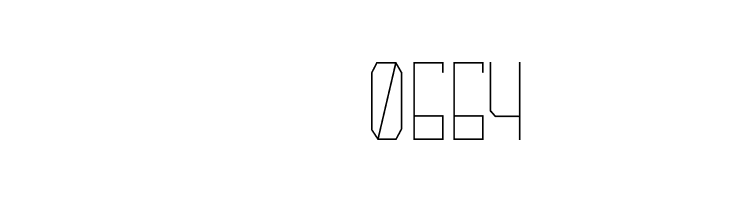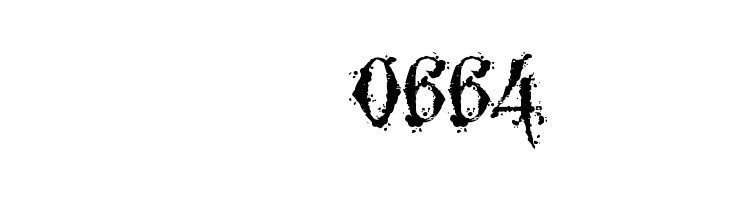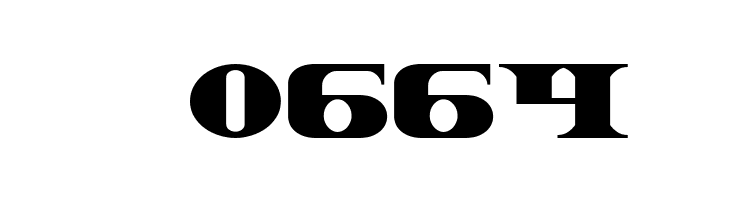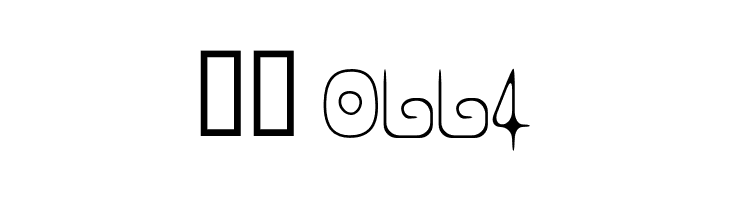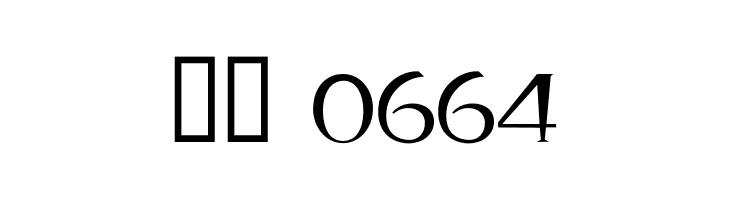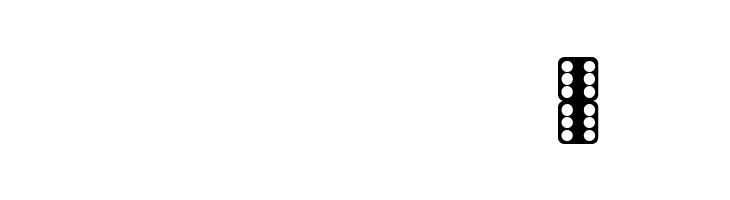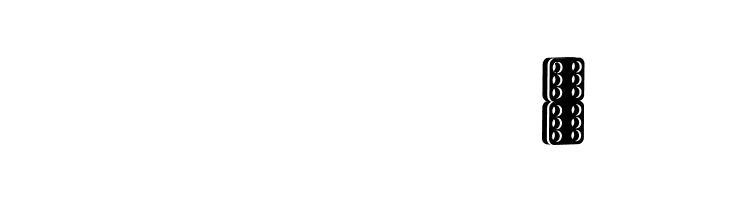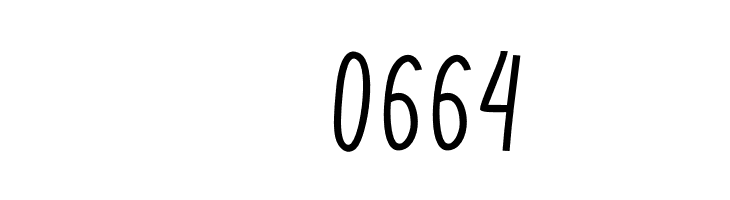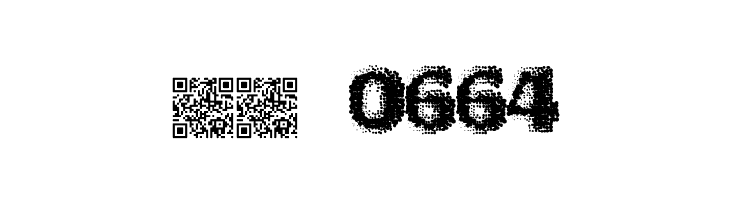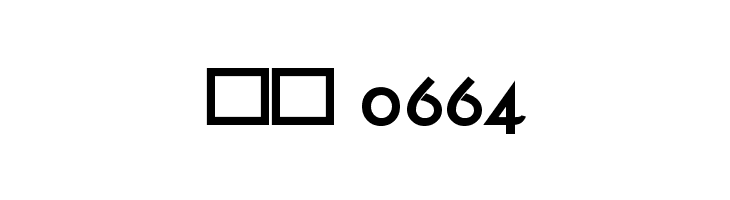
A playful, bubbly font with a hand-drawn, comic-like style.
A bold, textured blackletter font with a vintage gothic style.
A bold, geometric font with rounded edges and a modern style.
A modern-vintage font with smooth curves and consistent stroke width.
A bold, high-contrast serif font with dramatic strokes and a classic yet modern appeal.
A bold, high-contrast serif font with a modern twist.
A bold serif font with strong, angular serifs and a classic Western feel.
A bold, serif-inspired font with a modern twist, ideal for impactful headlines.
A sleek, modern font with geometric lines and a minimalist aesthetic.
A playful, three-dimensional font with bold outlines and artistic flair.
A whimsical, handwritten font with elongated strokes and artistic flair.
An elegant and decorative font with intricate swirls and loops.
A whimsical and decorative font with intricate loops and flourishes.
A bold, sketch-style font with a playful and dynamic appearance.
A geometric, monospaced font with bold strokes and rounded edges.
A modern, geometric font with bold, angular shapes and a clean design.
A dotted outline font with a playful and modern aesthetic.
A playful, hand-drawn font with a stick-like, sketchy appearance.
A bold, dotted font with a playful and artistic style.
A rugged, distressed font with a vintage, handcrafted look.
Bold font with a unique double shadow effect for striking visuals.
An artistic and decorative font with abstract, mystical letterforms.
A modern, artistic font with sharp angles and smooth curves, ideal for creative projects.
A modern, geometric font with rounded edges and a tech-inspired design.
A modern, rounded font with a bold, futuristic style.
A bold, italic, and modern font with a tech-inspired aesthetic.
A modern, italic font with geometric precision and a futuristic aesthetic.
A geometric, angular font with thin strokes and a futuristic style.